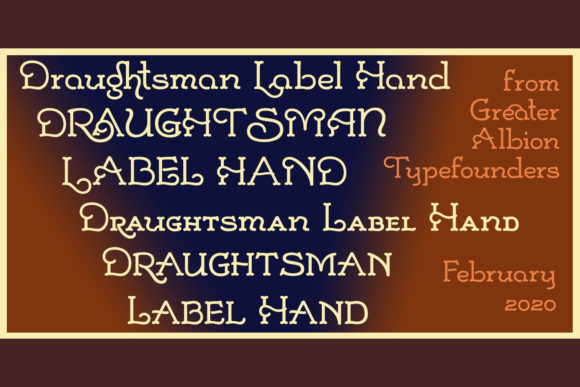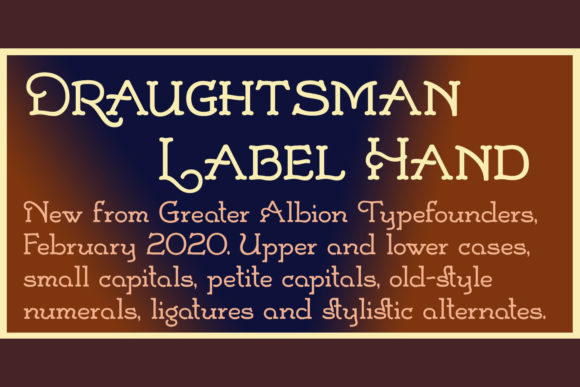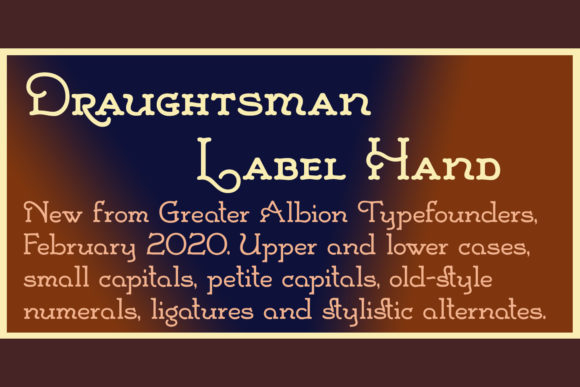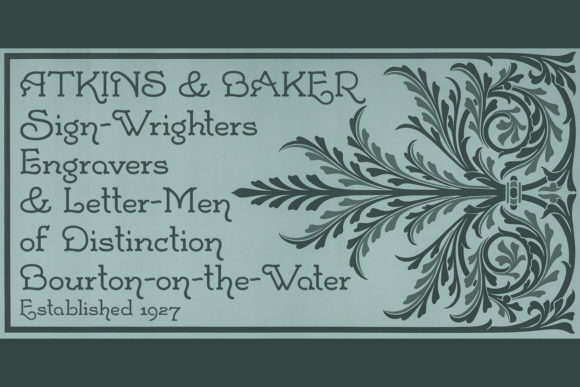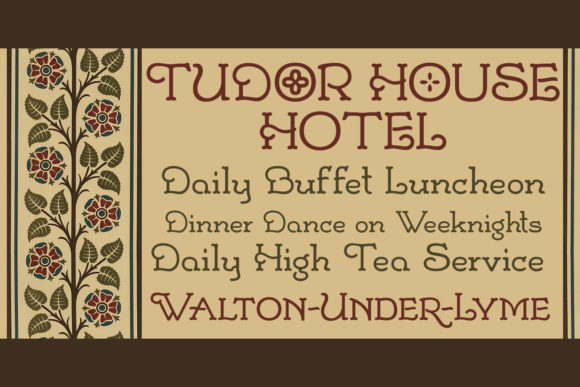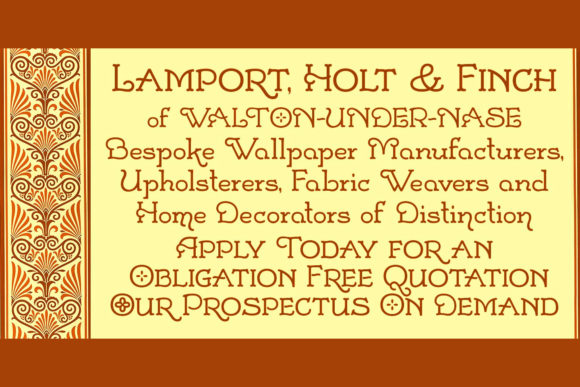
Draughtsman Label Hand Font: Elevate Your Designs with a Vintage Touch
In the world of typography, fonts play a crucial role in conveying the tone and aesthetic of a design. For designers and crafters looking to add a touch of nostalgia and uniqueness to their creations, the Draughtsman Label Hand font is an excellent choice. This distinct and vintage-styled display font is sure to elevate any project, regardless of the topic or industry.
What is Draughtsman Label Hand Font?
Draughtsman Label Hand is a carefully crafted font that embodies the essence of traditional handwriting. Its unique design is reminiscent of classic labels and signs from the past, making it perfect for projects that require a vintage or retro feel. The font’s distinctive style is characterized by its bold lines, subtle imperfections, and charming personality.
Key Features of Draughtsman Label Hand Font
• Unique and Distinctive Style: The Draughtsman Label Hand font boasts a one-of-a-kind design that sets it apart from other fonts.
• Vintage Inspiration: The font draws inspiration from traditional labels and signs, giving it a nostalgic feel.
• High Versatility: Draughtsman Label Hand is suitable for a wide range of projects, from branding and advertising to packaging and crafting.
• Easy to Read: Despite its bold and ornate design, the font remains highly legible, making it perfect for use in various contexts.
Benefits of Using Draughtsman Label Hand Font
The Draughtsman Label Hand font offers numerous benefits for designers and crafters. Some of the most significant advantages include:
• Instant Recognition: The font’s unique style ensures that your designs stand out and grab attention.
• Emotional Connection: The vintage inspiration behind the font helps create an emotional connection with your audience, evoking feelings of nostalgia and warmth.
• Flexibility: Draughtsman Label Hand can be used in various design contexts, from digital platforms to print materials.
• Time-Saving: With its distinctive style and high legibility, the font saves designers time and effort in creating custom typography.
Use Cases for Draughtsman Label Hand Font
The versatility of Draughtsman Label Hand font makes it suitable for a wide range of projects, including:
• Branding and Logo Design: Create unique and memorable logos that reflect your brand’s personality.
• Advertising and Marketing Materials: Use the font in posters, flyers, and brochures to grab attention and convey your message.
• Packaging Design: Add a touch of nostalgia to your product packaging and make it stand out on store shelves.
• Crafting and DIY Projects: Use the font to create custom labels, signs, and other decorative elements for your crafting projects.
Tips for Using Draughtsman Label Hand Font Effectively
To get the most out of Draughtsman Label Hand font, consider the following tips:
• Pair with Neutral Backgrounds: Allow the font to take center stage by pairing it with neutral or subtle backgrounds.
• Experiment with Colors: Try out different color schemes to find the perfect combination that complements the font’s vintage style.
• Use in Headlines and Titles: Take advantage of the font’s bold and attention-grabbing design by using it in headlines and titles.
In conclusion, the Draughtsman Label Hand font is an incredibly valuable asset for designers and crafters looking to add a touch of vintage charm to their creations. Its unique style, versatility, and high legibility make it perfect for a wide range of projects. By incorporating this font into your design library, you’ll be able to elevate your designs and create memorable, eye-catching pieces that leave a lasting impression.